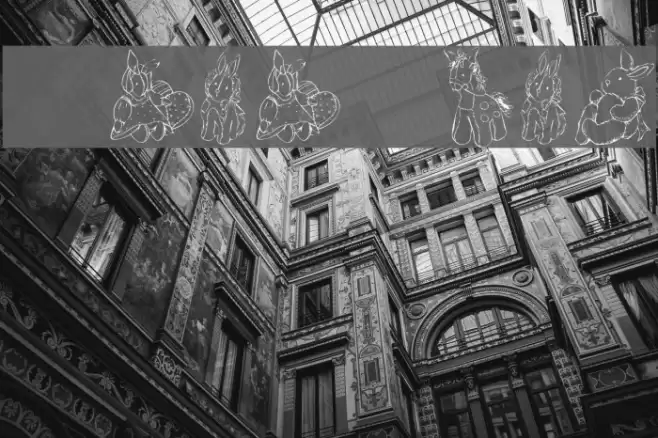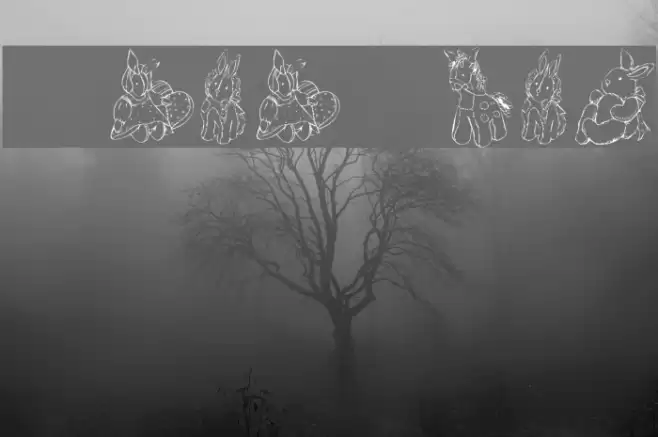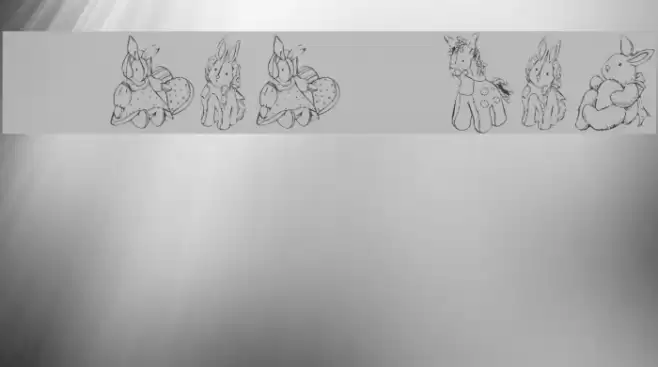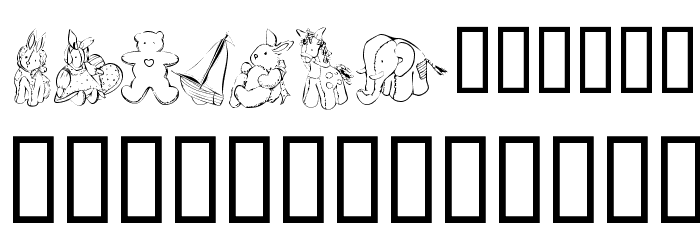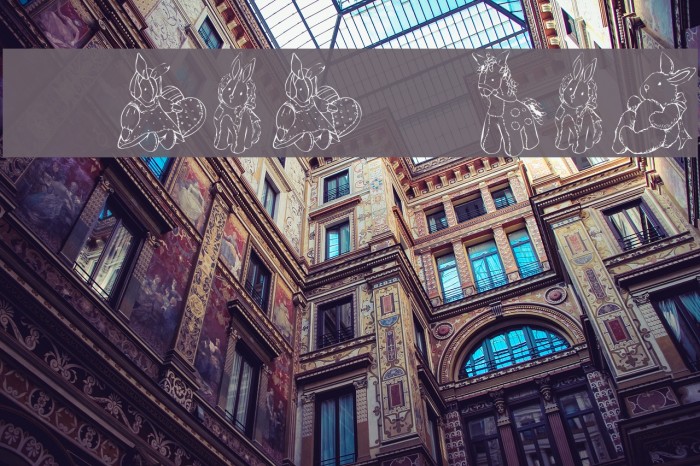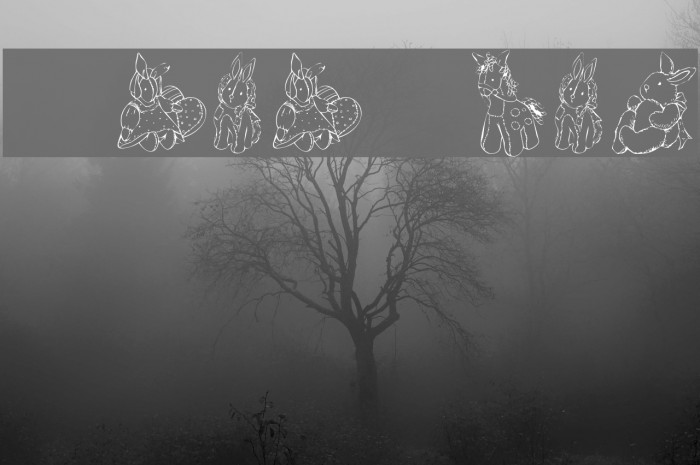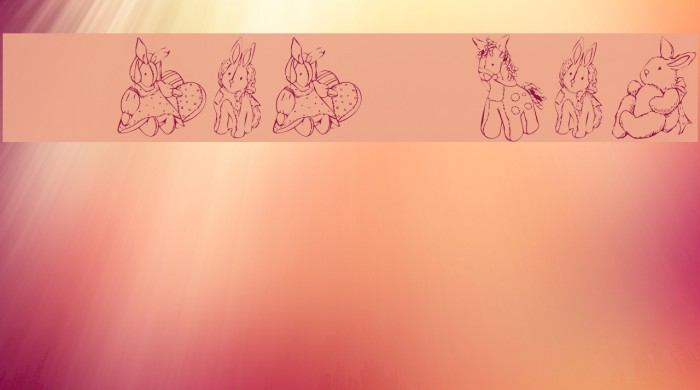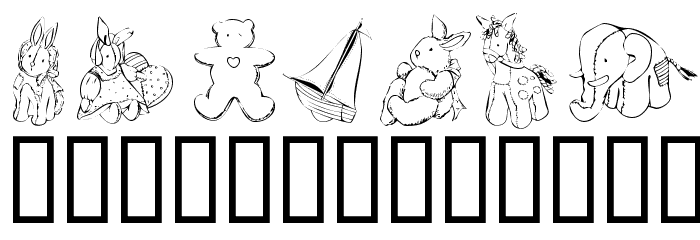
KR Baby's Favorites Font
KR Baby's Favorites Description
A decorative dingbat font featuring hand-drawn illustrations of stuffed animals, toys, and baby-themed objects, rendered in a sketchy, whimsical style with fine linework and playful details.
Hand-drawn baby toy and animal dingbat illustrations from Uncategorized fonts.
- Proposed Projects: Baby shower invitations, children's party decor, scrapbooking, nursery art, greeting cards.
- Overall Style: Whimsical, Playful, Decorative
- Use Case: Decorative elements, Themed graphics, Scrapbooking